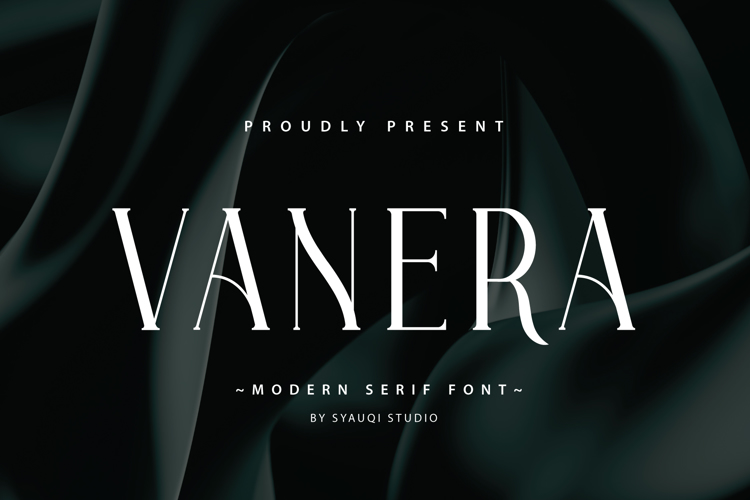
Vanera Font
Vanera is a serif font that comes with very beautiful changing characters that will bring in your projects a touch of luxury and style.
The modern style is perfect to be applied in various formal forms such as invitations, labels, restaurant menus, logos, fashion, branding, make up, stationery, novels, magazines, books, greeting / wedding cards, packaging, labels or any type of advertising purpose.